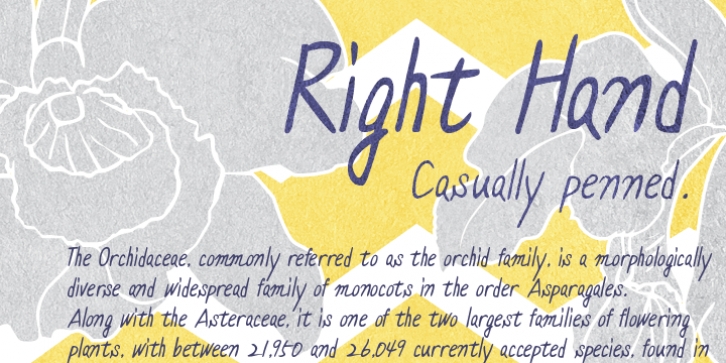
Right Hand is a legible naturally written script. Tidy pen writing with a casual slant. Right Hand is extended, containing West European diacritics & ligatures, making it suitable for multilingual environments & publications.